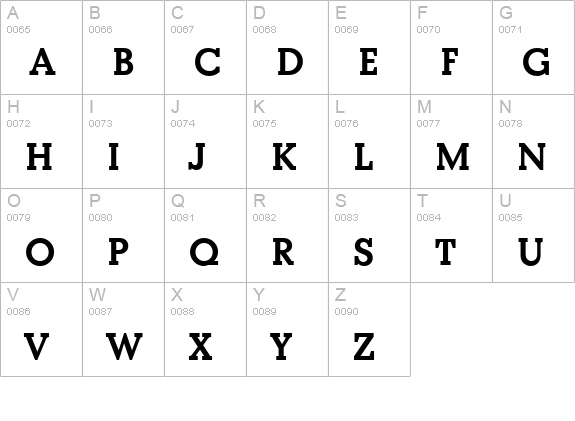
Boston-Bold is a strong, high-contrast variant in the Boston typeface family \xE2\x80\x94 well suited to headlines, attention-grabbing titles, and strong calls-to-action.
Introducing Boston-Bold, a sleek and modern font that exudes confidence and sophistication. With its bold and striking appearance, Boston-Bold is perfect for making a statement in your designs. Whether you are creating eye-catching logos, attention-grabbing headlines, or stylish branding materials, this font is sure to leave a lasting impression. The best part? Boston-Bold is available for free download at FontsMarket.com, allowing you to easily access this versatile font for all your creative projects. Don't miss out on the opportunity to elevate your designs with the timeless elegance of Boston-Bold. Download it today and let your creativity shine!